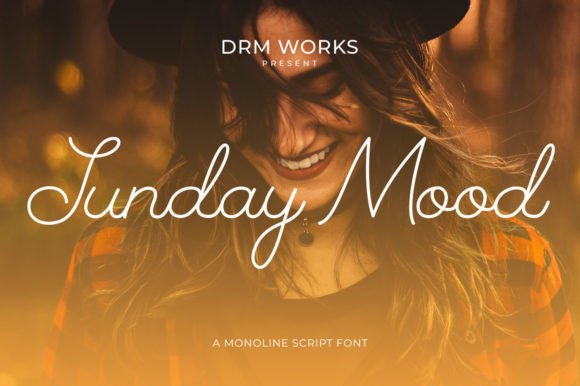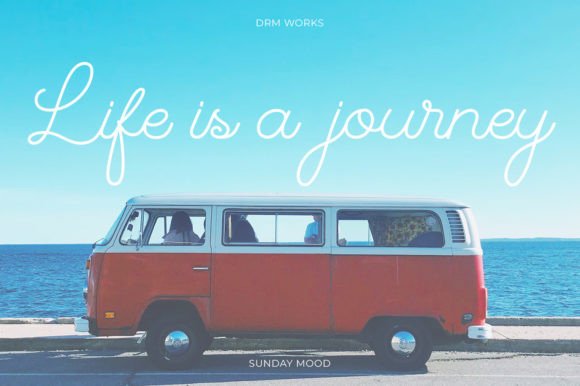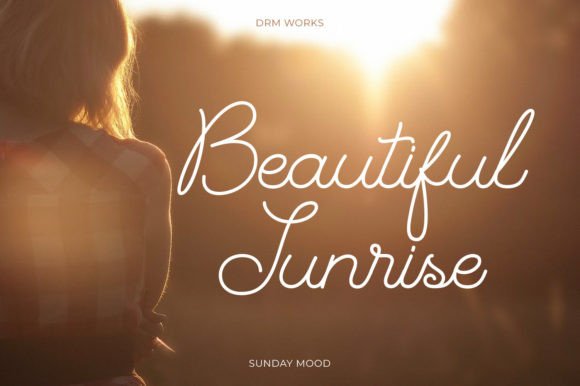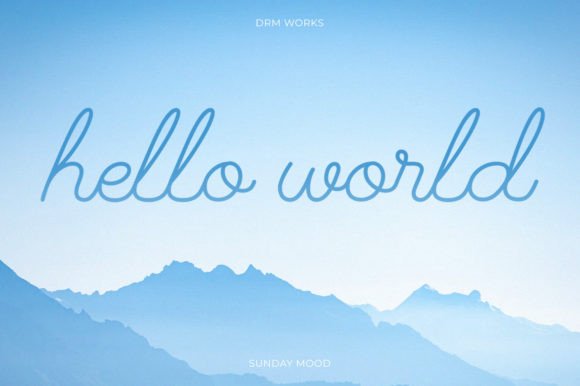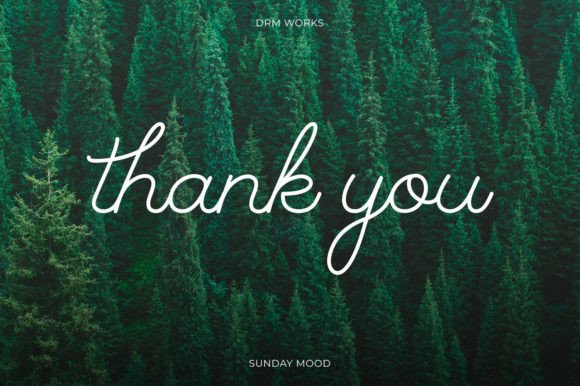
About Sunday Mood Font
Sunday Mood is a modern and cool monoline script font that brings a sense of effortless style to any design. With clean, smooth lines and an inviting personality, this font is made to fit seamlessly into a wide variety of projects. Whether you are designing for business, personal, or creative purposes, Sunday Mood will help you communicate your ideas with clarity and elegance.
Crafted with care, Sunday Mood stands out for its graceful simplicity. The monoline strokes create a consistent visual rhythm that feels fresh, friendly, and professional at the same time. Each character has been meticulously designed to balance legibility with artistic flair, so you can use it confidently across many applications.
Perfect for Branding and Logos
Sunday Mood is the perfect font for creating a brand identity that feels modern, approachable, and memorable. Its sleek curves and balanced forms make it ideal for:
Logos: Build a distinct and professional look for any brand.
Business Cards: Leave a lasting impression with stylish typography.
Product Labels: Add a handcrafted touch to your packaging.
Brand Guidelines: Create cohesive visual assets across all platforms.
If you want your brand to feel polished but still warm and inviting, Sunday Mood delivers.
Ideal for Social Media and Digital Design
Your social media content deserves typography that stands out and feels authentic. Sunday Mood shines on screen, making it a great choice for:
Instagram quotes
Pinterest graphics
Facebook promotions
YouTube thumbnails
Website banners
Email headers
Its smooth lines remain sharp and clear, no matter the device or platform.
Great for Crafts and DIY Projects
Sunday Mood is also perfect for all your creative hobbies. Its clean and contemporary style adds a personal touch to handmade projects like:
Greeting cards
Wedding invitations
Custom mugs and tumblers
T-shirts and tote bags
Scrapbooking titles
Handmade product packaging
If you enjoy crafting, Sunday Mood will quickly become a favorite in your font collection.
Why Choose Sunday Mood Font?
Designers and creatives love Sunday Mood because:
Clean Monoline Style: Simple, modern, and elegant.
Versatile Application: Perfect for business and personal projects.
Beautiful in Print and Digital: Always crisp and clear.
Timeless Appeal: A look that never goes out of style.
Creative Ways to Use Sunday Mood
Need inspiration? Here are some ideas:
Pair it with a bold serif for dynamic contrast.
Use soft pastels to emphasize its contemporary feel.
Combine it with watercolor textures for a handmade vibe.
Add it to branded merchandise for a modern touch.
Create minimalistic stationery with clean, elegant typography.